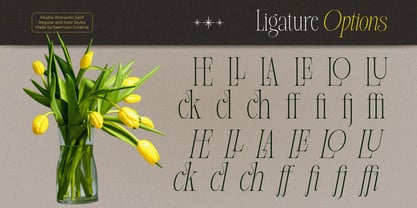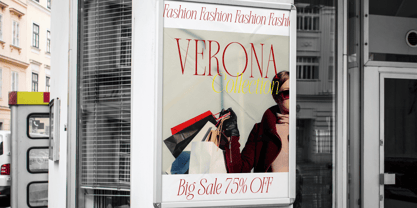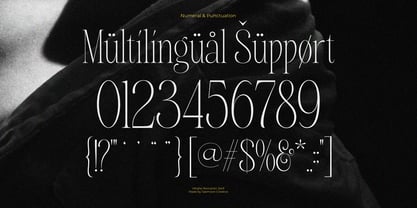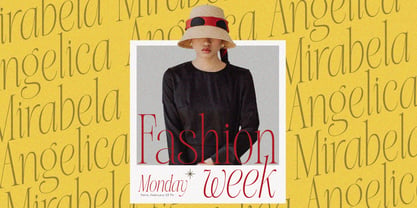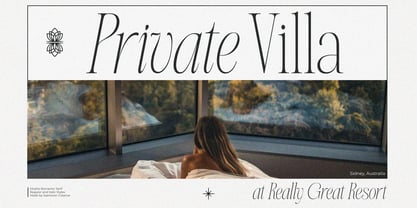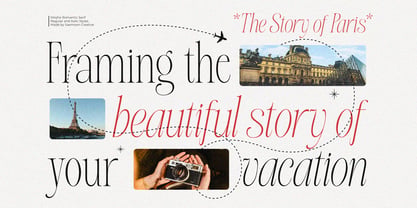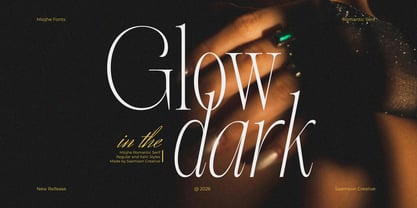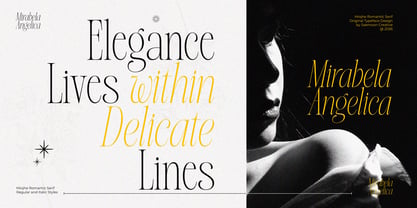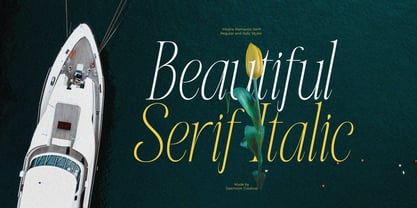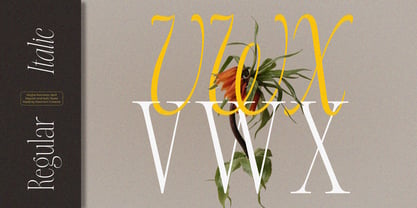
Miojhe
por Saemoon Creative
La familia tipográfica Miojhe fue diseñada por Sapto Susilo y publicada por Saemoon Creative. Miojhe contiene 2 estilos y opciones de paquete familiar. Más información sobre esta familia
Miojhe – Romantic Serif is an elegant serif typeface that carries a romantic, gentle, and timeless character. Crafted with refined contrasts and graceful curves, Miojhe brings a soft sense of luxury and emotional depth to every design. Designed to support rich and expressive layouts, Miojhe is equipped with carefully crafted ligatures that add a natural flow and subtle uniqueness to your typography. These ligatures help create a more personal and refined visual rhythm, making your designs feel alive and thoughtfully composed. Miojhe is perfect for wedding designs, fashion branding, editorial layouts, luxury packaging, invitations, logos, quotes, and romantic-themed projects. Its balanced letterforms allow it to shine both as a headline and a decorative display font. The font includes Regular and Italic styles, giving you the freedom to explore elegant typographic expressions while maintaining harmony and readability. Features: Romantic and elegant serif style Regular & Italic styles included Beautiful ligatures for richer typography Soft curves with refined details Ideal for branding, editorial, wedding, and luxury design Created by Saemoon Creative, Miojhe is designed for creators who value emotion, elegance, and thoughtful details in typography.